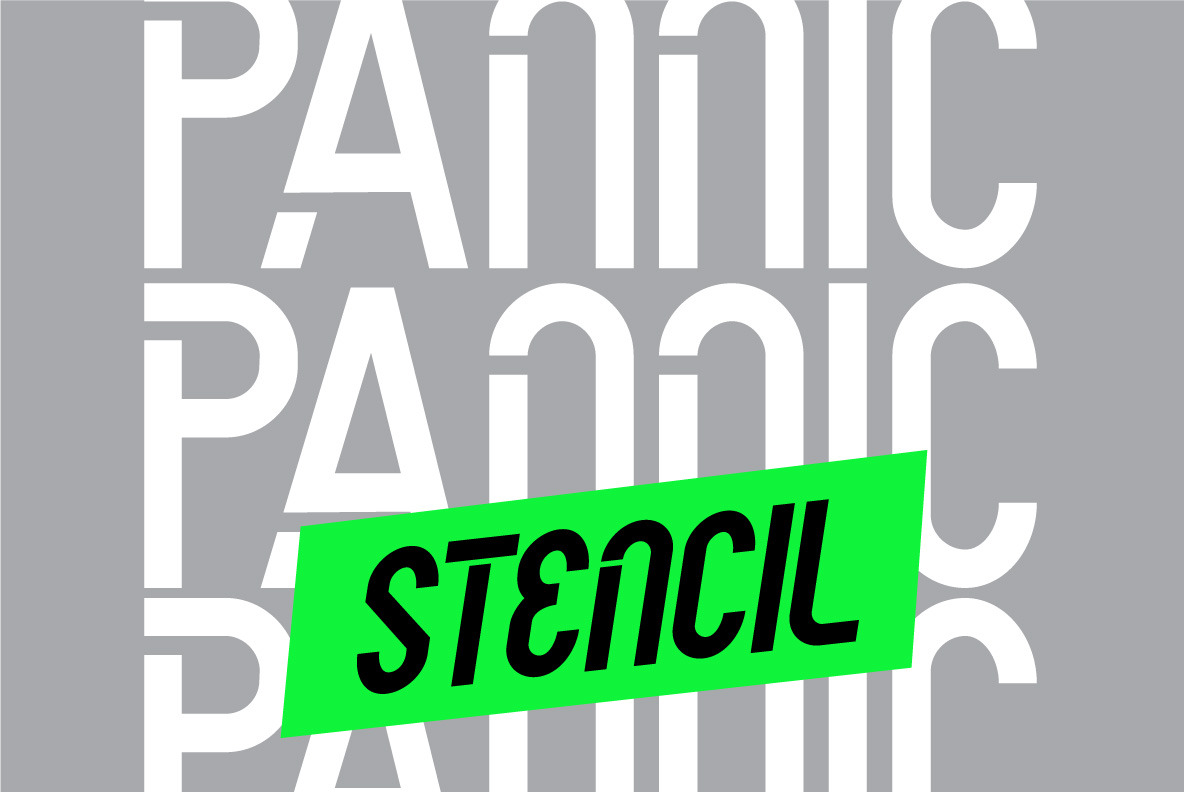
PANNIC - Display Font Sans
Introducing the new PANNIC Sans Font! A BOLD, TALL, modern Techno Typeface. Try it for yourself and see how eye-catching your new stand-out designs will be!